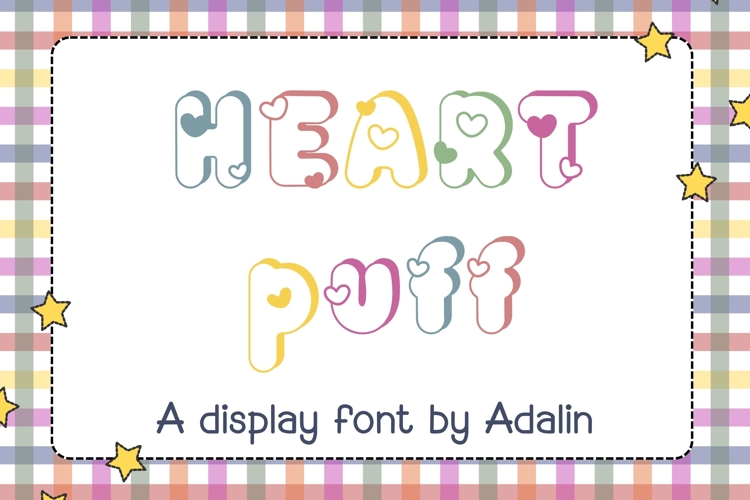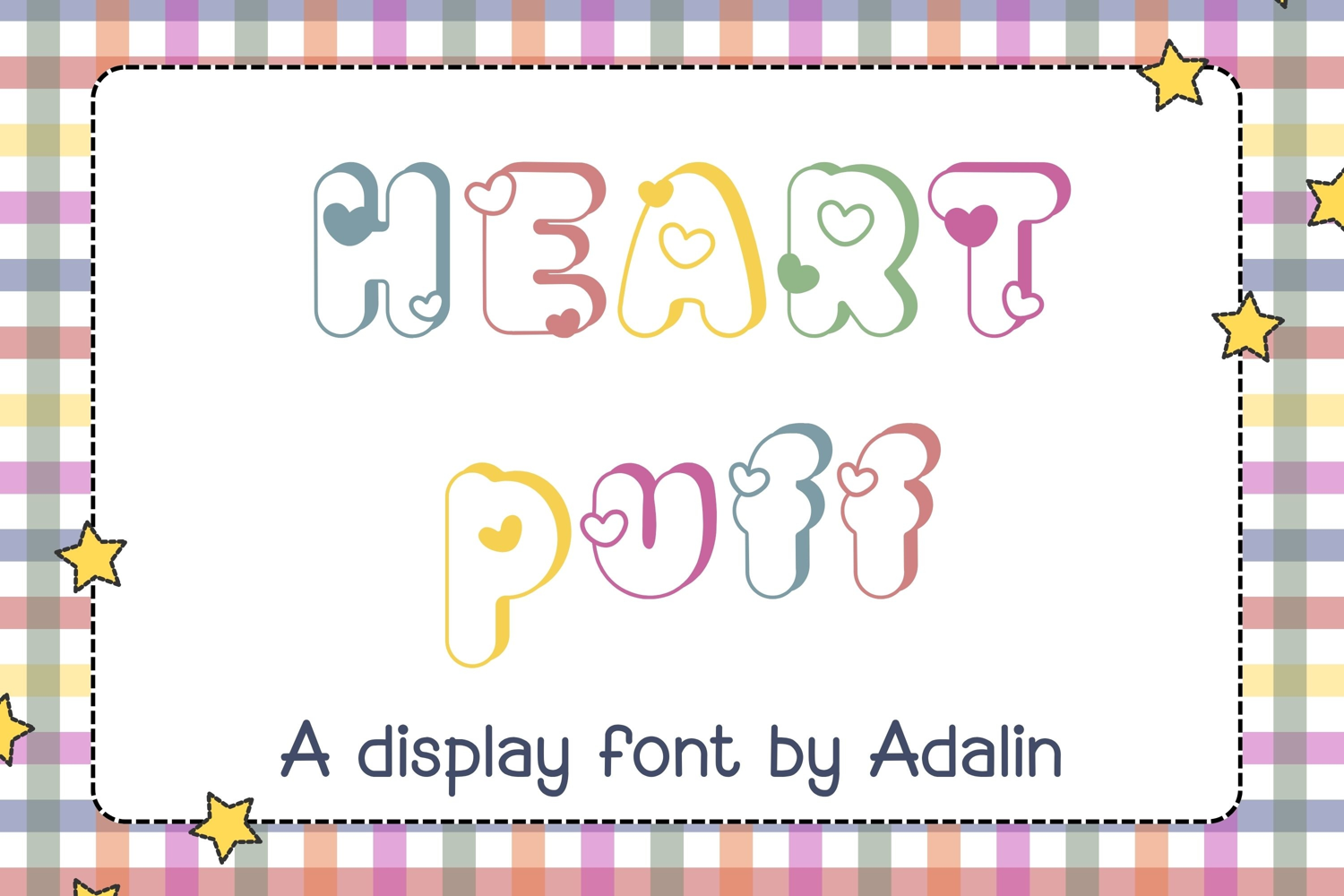
Heart Puff is a sweet and playful display font featuring soft rounded letters with adorable heart details in every character. Its clean outline style and pastel-inspired aesthetic make it perfect for children's designs, Valentine's Day projects, baby showers, birthday invitations, stickers, sublimation, branding, social media graphics, and DIY crafts. The font includes uppercase and lowercase letters, numerals, and punctuation, making it a versatile choice for both digital and print projects. Compatible with Cricut, Silhouette, Canva, Adobe Illustrator, Photoshop, and more.
HeartPuff